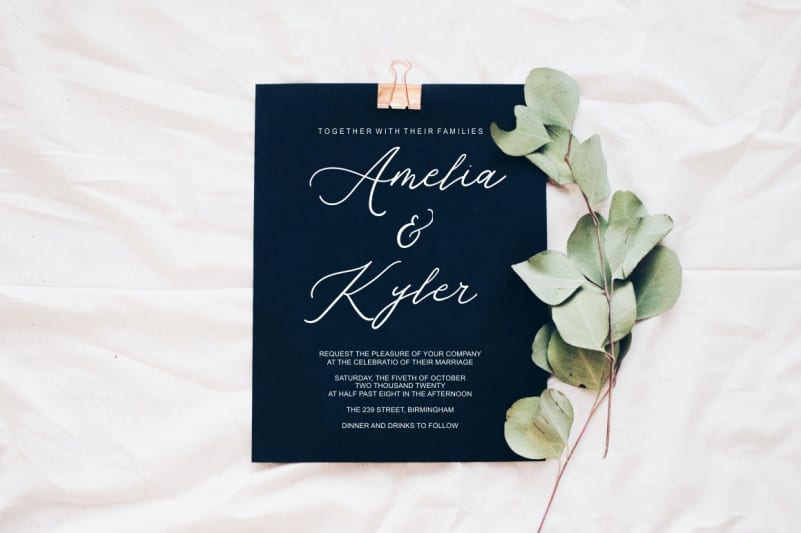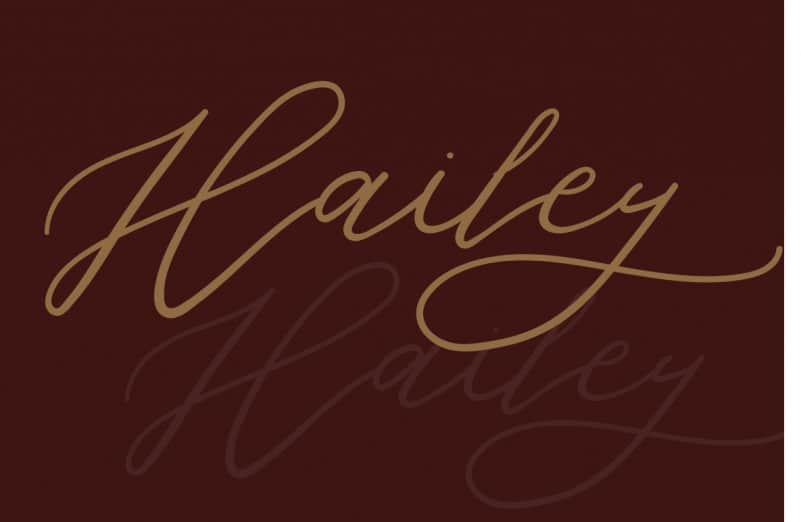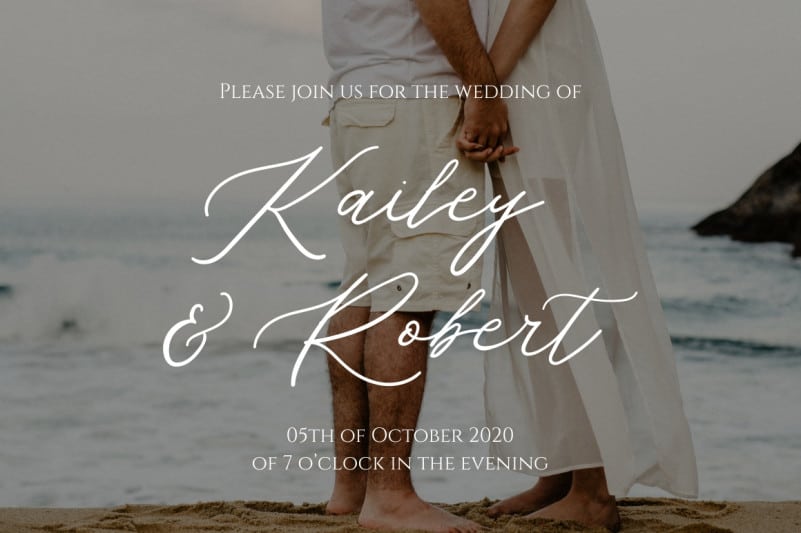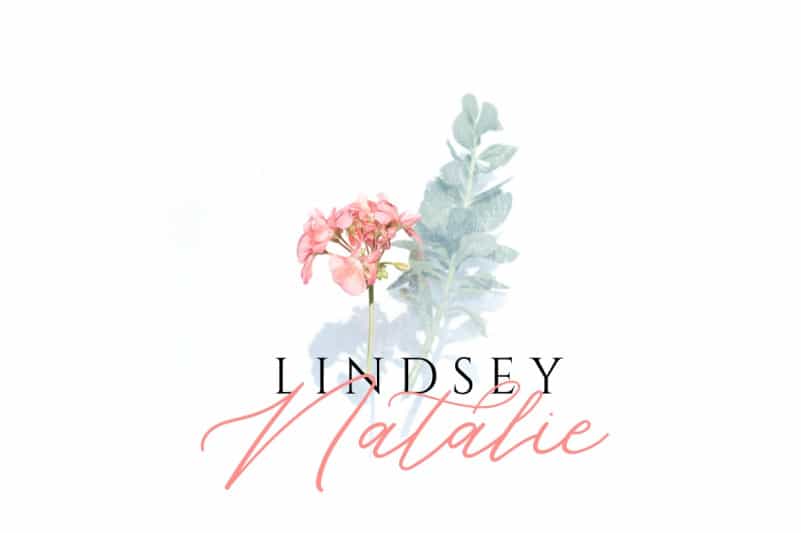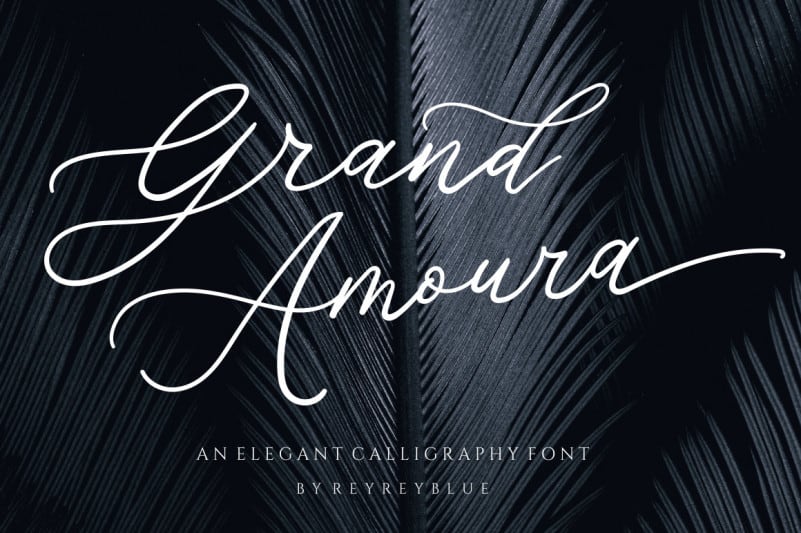
Introducing Grand Amoura Handwritten Font a classy modern calligraphy font. Grand Amoura is perfect for elegant logos, upscale packaging, wedding stationery, websites, and any other projects requiring a handwritten and luxurious touch. A wide range of swashes and alternates are included so that you can give your logo or name a custom, hand-calligraphy look.
Grand Amoura is here to elevate your work to the highest level.